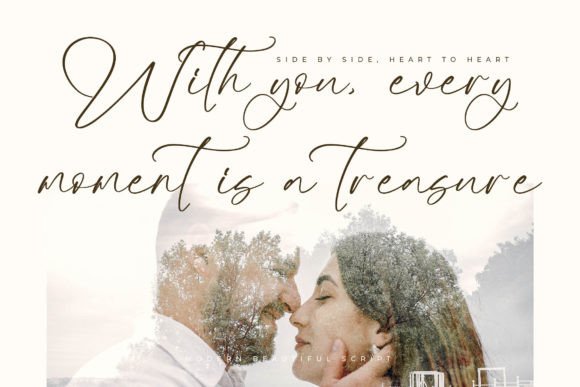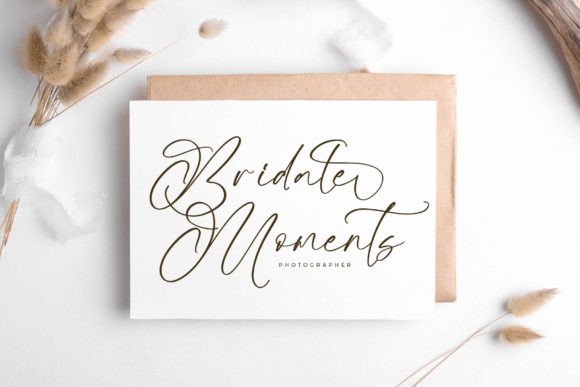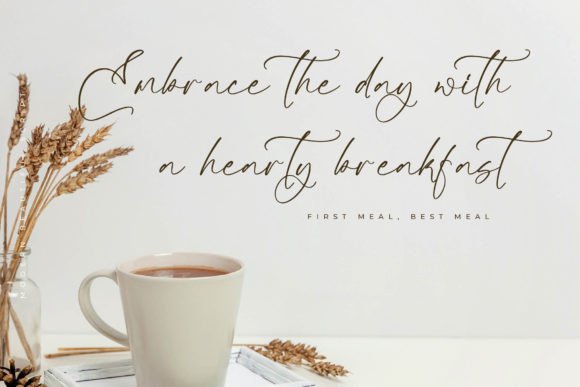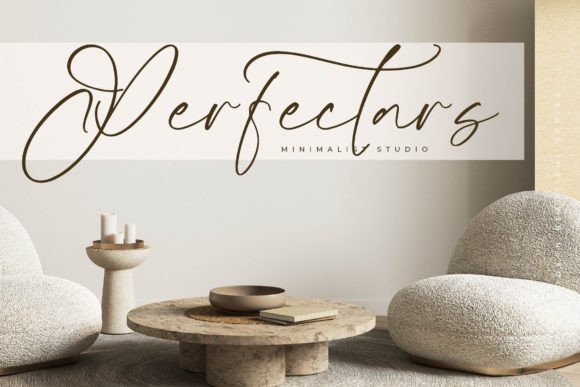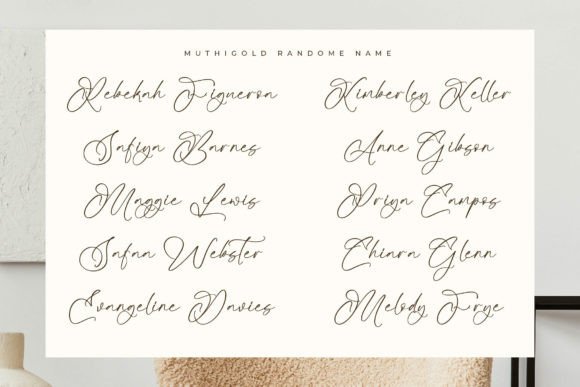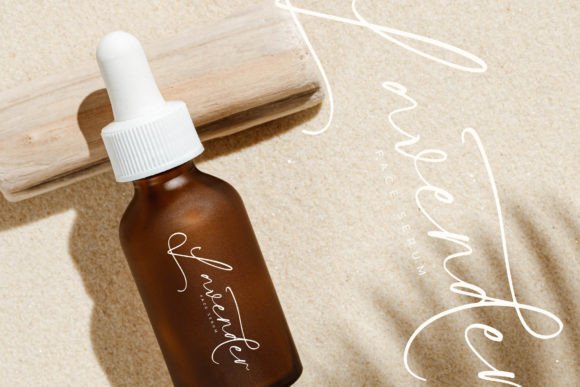
Introduction to Muthigold Font
Imagine yourself sitting at your desk, surrounded by scattered sheets of paper, colored pencils, and a blank canvas staring back at you. The blank page is a daunting task for any designer, but the right font can be the spark that ignites your creativity. For those who crave luxury and sophistication in their designs, the Muthigold Font is a game-changer. This stunning script font from Letterena is a treasure trove for designers seeking a high-quality, elegant font that elevates their creative projects to the next level.
As a valuable resource for designers, the Muthigold Font is an essential addition to any design arsenal. With its versatility and luxurious feel, it’s perfect for a wide range of projects, from logos and branding to product packaging and homeware designs. Whether you’re working on a free download or a paid project, this font is sure to leave a lasting impression on your audience.
- High-quality, elegant design suitable for creative projects, including invitations, greeting cards, and logos.
- Includes 6 styles with varying weights and widths, offering flexibility for different design needs.
- Perfect for designers and artists looking for a unique, luxurious feel in their creative projects.
Honest Review: Muthigold Font
I recently stumbled upon the Muthigold Font, and I must say it’s a great addition to any designer’s resource library. This font is perfect for a creative project that requires a touch of elegance and sophistication.
- ✨ High-quality design: The Muthigold Font is well-designed and looks great in a variety of settings.
- ✨ Versatile: This font can be used for both digital and print projects, making it a great asset for designers.
- ✨ Transparent background: The font has a transparent background, making it easy to use with a variety of backgrounds and designs.
- ⚠️ Limited font styles: The Muthigold Font only comes in a few different styles, which may limit its versatility for some designers.
- ⚠️ Not ideal for bold text: While the font is great for body text, it may not be the best choice for bold or headlines.
Tips for Getting the Most Out of Muthigold Font
For the best results, use the Muthigold Font in conjunction with high-quality images and a clear, concise design message. Experiment with different font sizes, colors, and styles to find the perfect look for your project.
The Muthigold Font is ideal for use in a variety of creative projects, including:
- Custom presentations and documents
- Brand identity and logo design
- Print and digital marketing materials